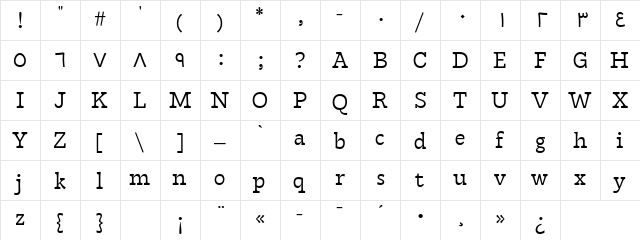
Tarif Arabic Book
Book · Zetafonts Andrea Tartarelli, Cosimo Lorenzo Pancini, Francesco Canovaro ·
Design Context for Tarif Arabic Typeface
Tarif Arabic is a composed and adaptable typeface that performs quietly and consistently across a wide range of design contexts.